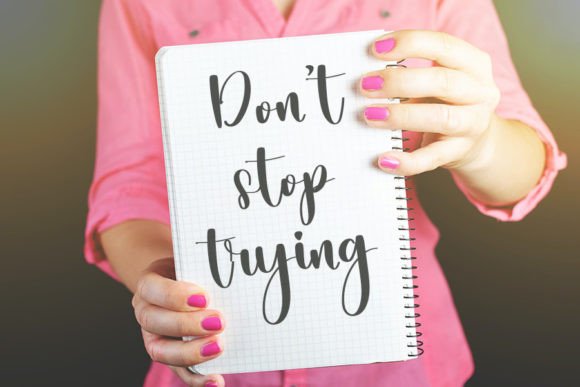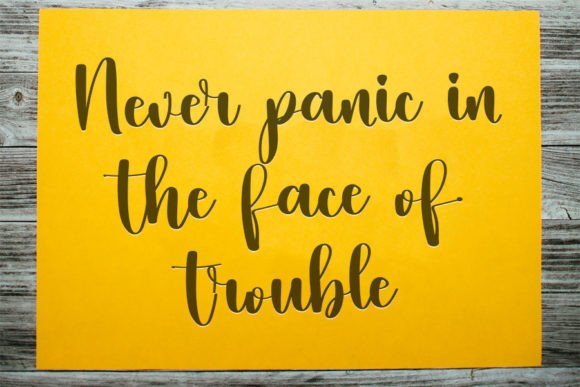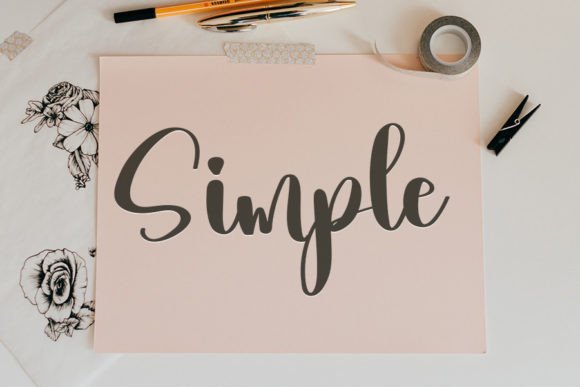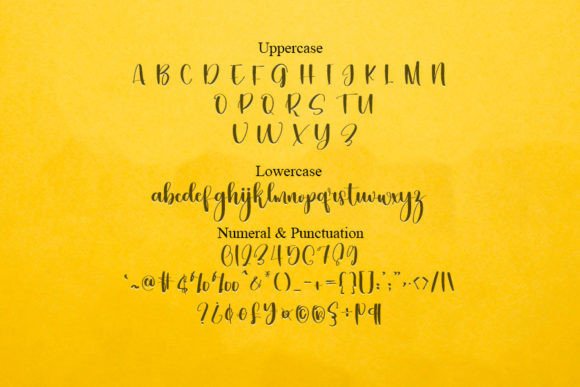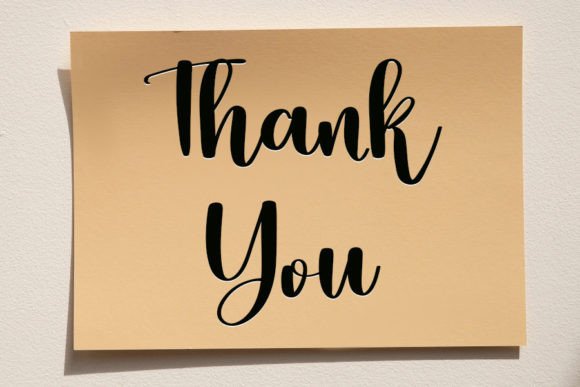
Farm Font
Add Timeless Elegance with Farm Font
The Farm font is a trendy handwritten script that combines a contemporary atmosphere with impeccable form, inspired by timeless classic calligraphy. This font brings a refined and elegant touch to any creative project, making your designs stand out with sophistication.
Perfect for Elegant and Classy Designs
The Farm font is ideal for a wide range of applications including branding, invitations, logos, posters, packaging, social media graphics, and much more. Its graceful strokes and classic inspiration give your projects a polished and professional look.
A Handwritten Script with Classic Inspiration
Each character in the Farm font is crafted with smooth, flowing lines that balance modern style with traditional calligraphy. This font is perfect for headlines, logos, and decorative text elements that require both elegance and readability.
Despite its classic inspiration, the Farm font maintains excellent readability across different sizes. Whether used for large titles or detailed text, it balances beauty with clarity, making it a versatile choice for many creative projects.
Make Your Designs Shine with Elegant Handwriting